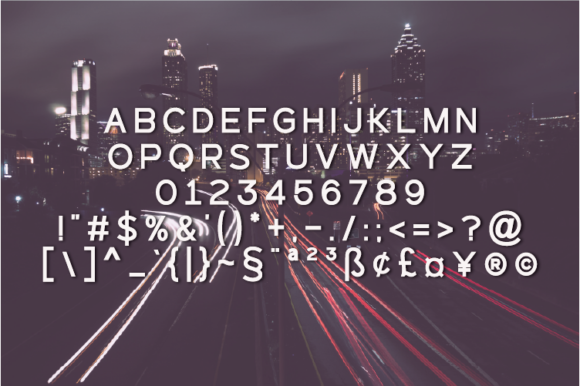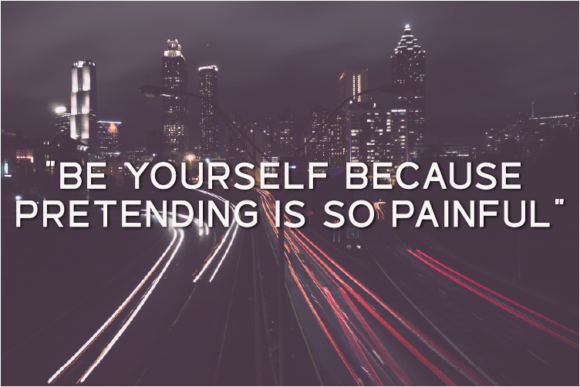
Introducing Deobird Font: The Ultimate Sans Serif for Creative Projects
Are you a designer or crafter looking for the perfect font to elevate your creative projects? Look no further than Deobird Font, a minimal and neat sans serif font that’s designed to make your designs stand out. In this article, we’ll dive into the world of Deobird Font, exploring its features, benefits, and uses, and why it’s a must-have for any creative professional.
What is Deobird Font?
Deobird Font is a modern sans serif font that’s characterized by its clean lines, simple shapes, and minimalist aesthetic. It’s a versatile font that can be used for a wide range of projects, from branding and advertising to packaging and digital design. Whether you’re working on a logo, brochure, or website, Deobird Font is the perfect choice for adding a touch of elegance and sophistication.
Key Features of Deobird Font
So, what makes Deobird Font so special? Here are just a few of its key features:
- Minimalist design: Deobird Font features a clean and minimalist design that’s perfect for modern designs.
- Sans serif: The font’s sans serif design makes it easy to read and versatile for use in a variety of contexts.
- Highly legible: Deobird Font is designed to be highly legible, even at small sizes, making it perfect for body text and captions.
- Wide range of uses: Deobird Font can be used for a wide range of projects, from print materials to digital designs.
Benefits of Using Deobird Font
So, why should you choose Deobird Font for your next project? Here are just a few benefits of using this amazing font:
- Elegance and sophistication: Deobird Font adds a touch of elegance and sophistication to any design.
- Versatility: The font’s versatility makes it perfect for use in a wide range of projects and contexts.
- Easy to read: Deobird Font is highly legible, making it perfect for body text and captions.
- Unique and creative: Deobird Font is a unique and creative font that will help your designs stand out from the crowd.
How to Use Deobird Font
Deobird Font is easy to use and can be incorporated into your designs in a variety of ways. Here are a few tips for using Deobird Font:
- Pair with other fonts: Deobird Font pairs well with other fonts, so feel free to experiment with different combinations.
- Use for headings and body text: Deobird Font is perfect for use in headings and body text, making it a great choice for brochures, flyers, and other print materials.
- Experiment with different sizes: Deobird Font is highly legible, even at small sizes, so don’t be afraid to experiment with different sizes and styles.
In conclusion, Deobird Font is a must-have for any designer or crafter looking to elevate their creative projects. Its minimalist design, sans serif aesthetic, and high legibility make it perfect for use in a wide range of contexts. Whether you’re working on a logo, brochure, or website, Deobird Font is the perfect choice for adding a touch of elegance and sophistication. So why wait? Download Deobird Font today and start creating stunning designs that will leave a lasting impression!